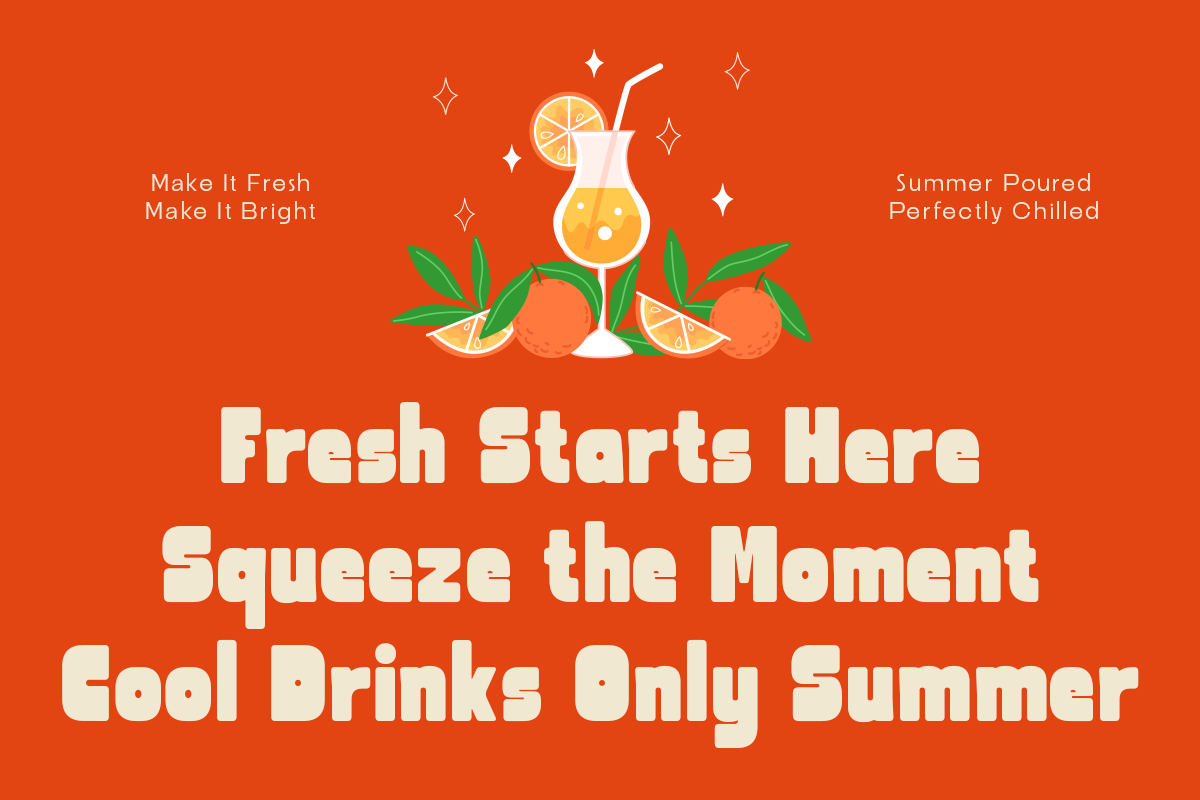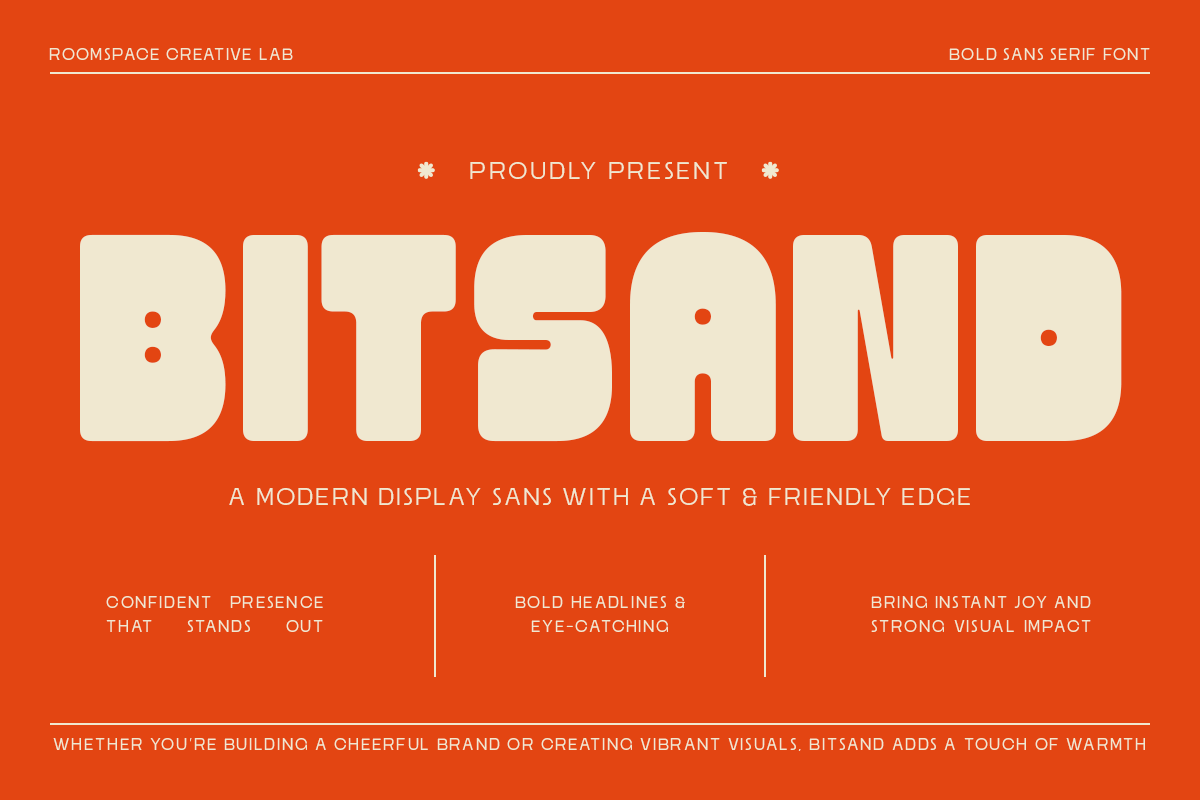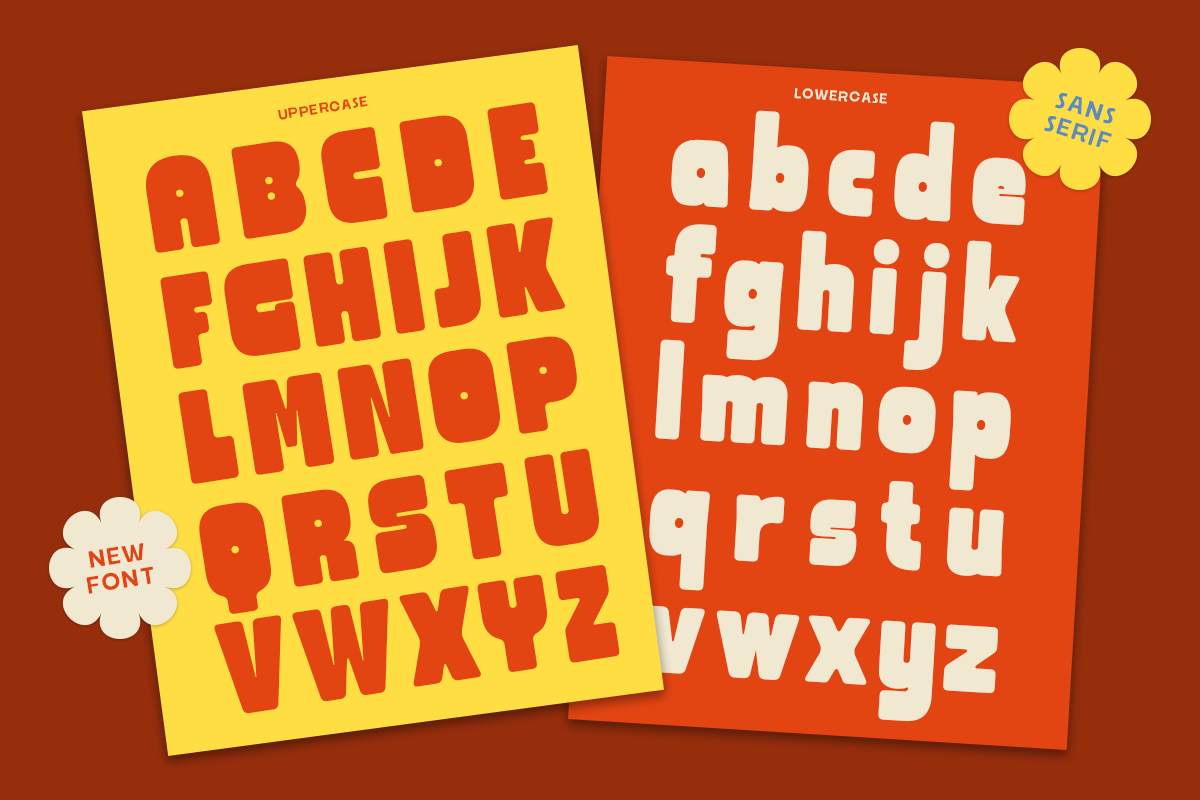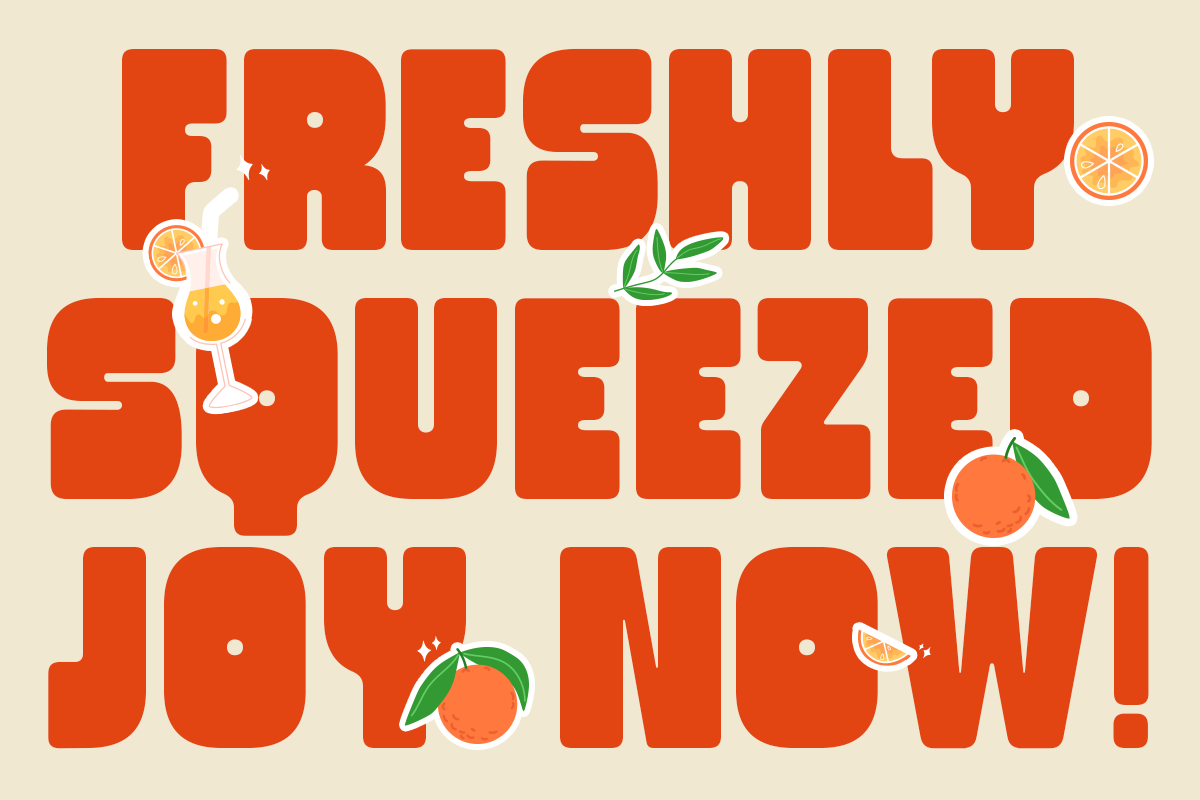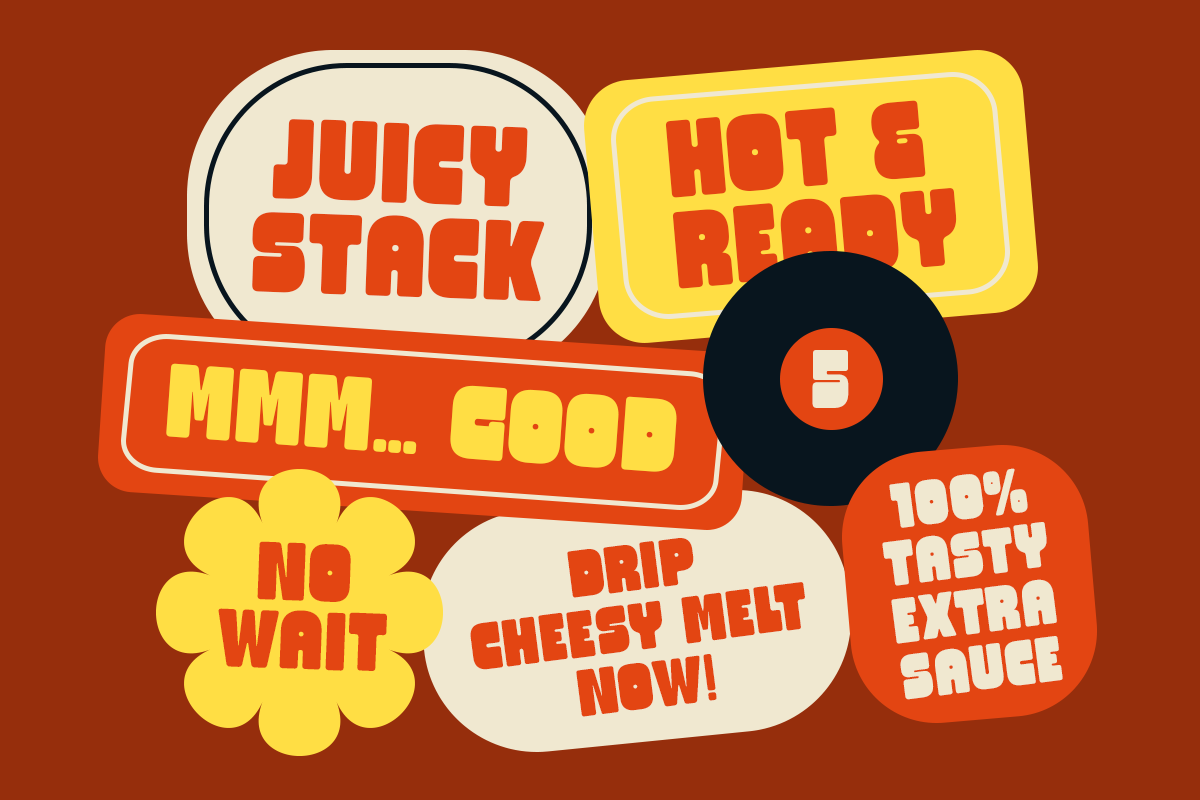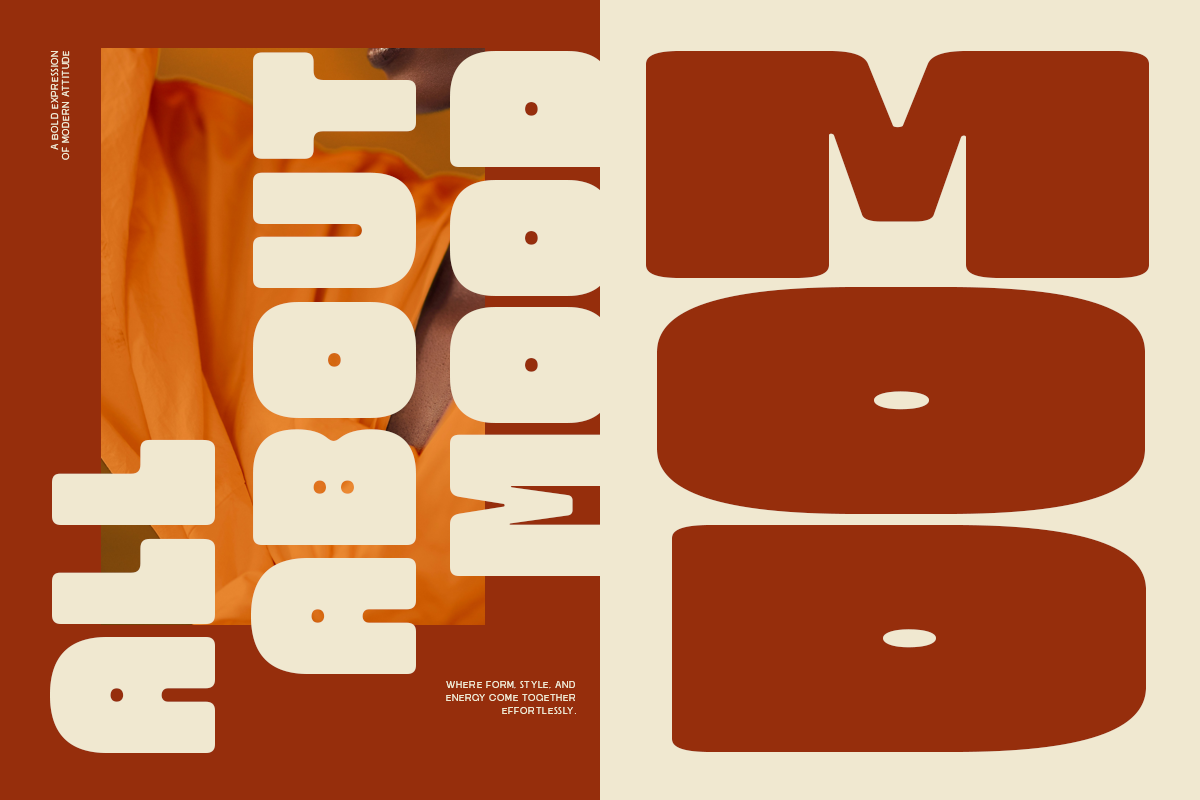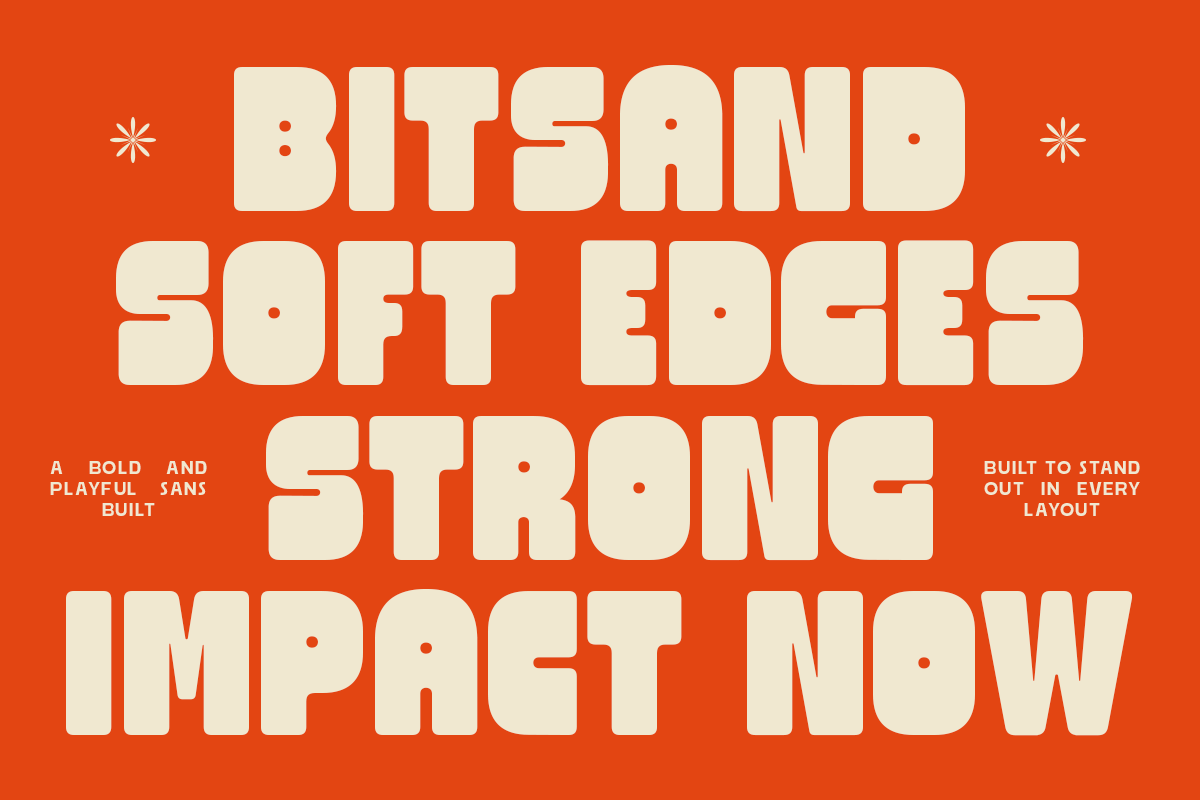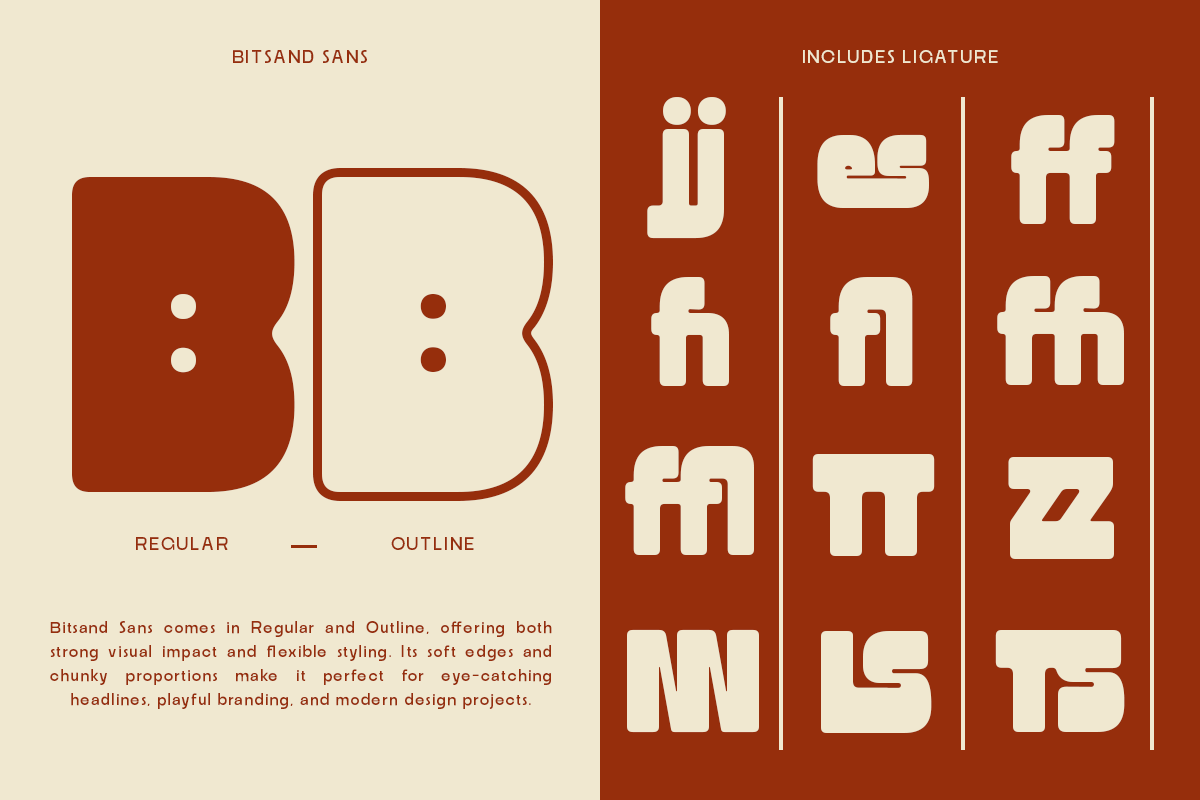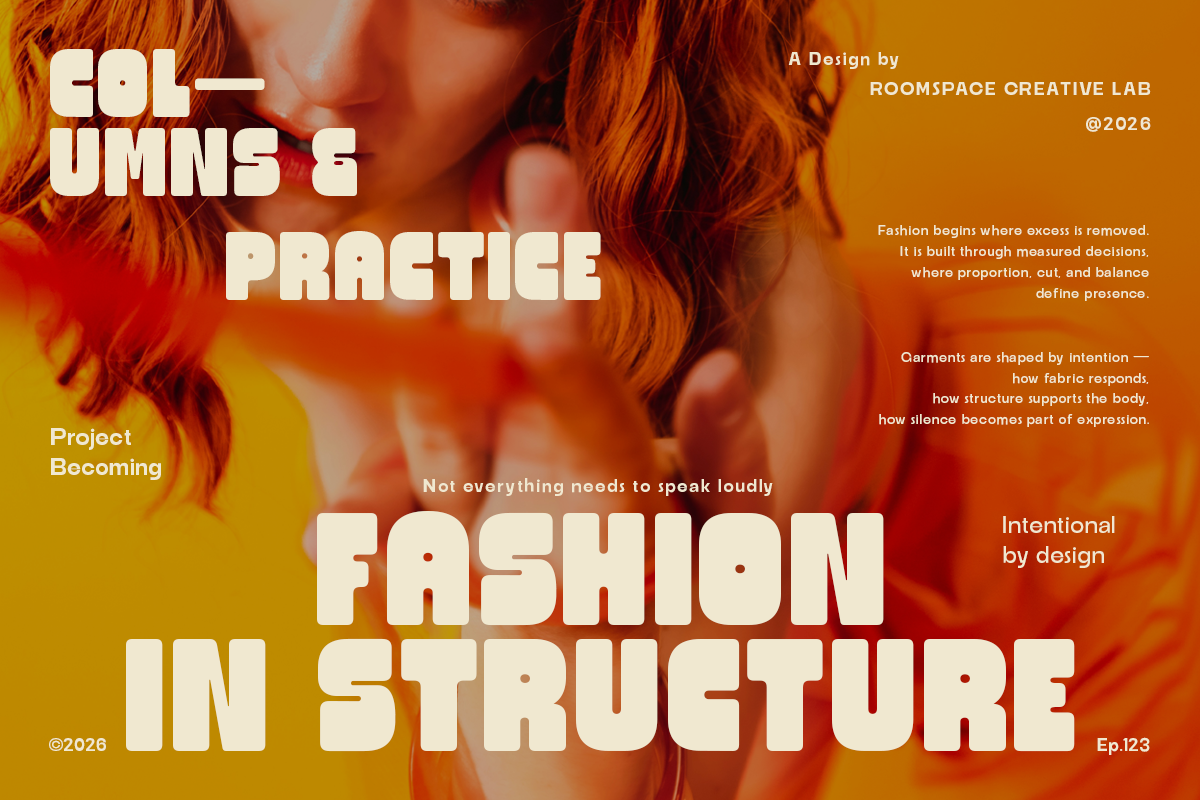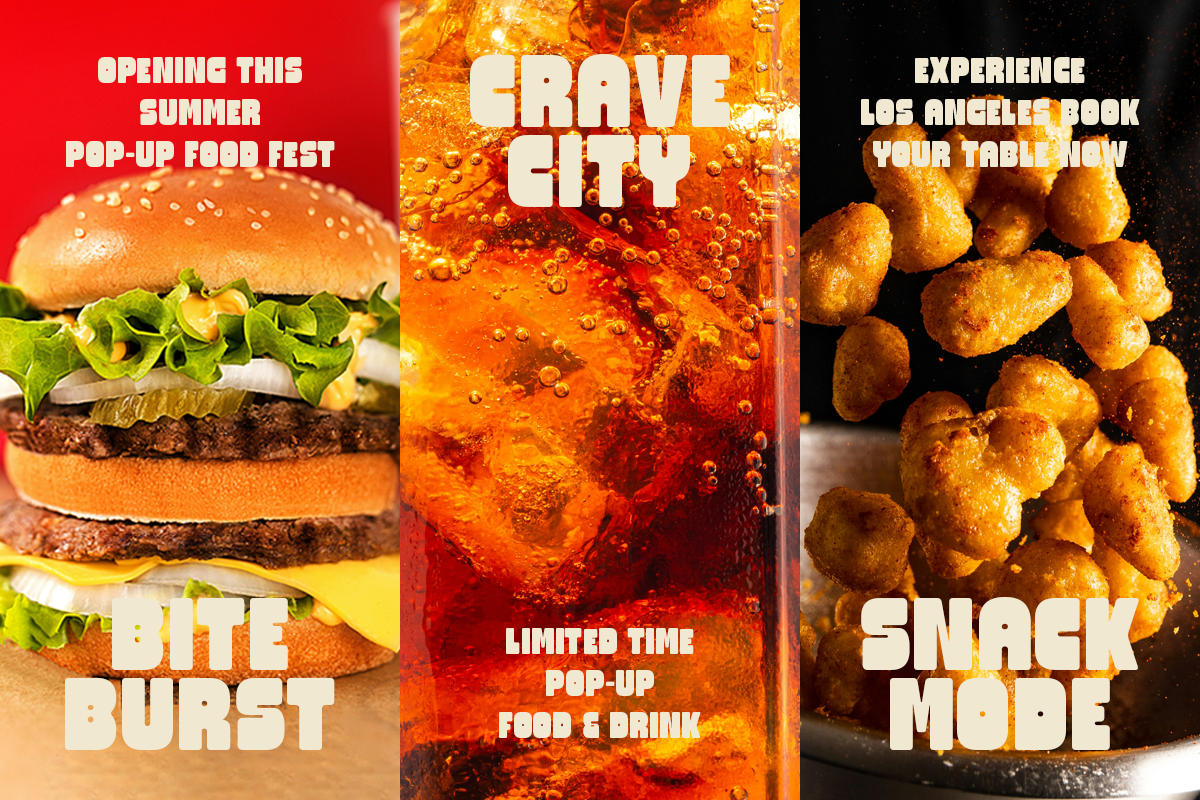
Bitsand – Bold Playful Display Font
Bitsand is a bold display sans-serif font designed to bring warmth, energy, and personality into your designs. With its rounded shapes and soft edges, it creates a friendly and approachable tone while still delivering strong visual impact. Carefully crafted with balanced proportions and smooth curves, Bitsand offers excellent readability in large sizes. Its bold structure makes it perfect for headlines, logos, and standout typography, while its playful character adds a unique charm to every composition.
Rounded and soft shapes
Uppercase & lowercase
Smooth kerning & spacing